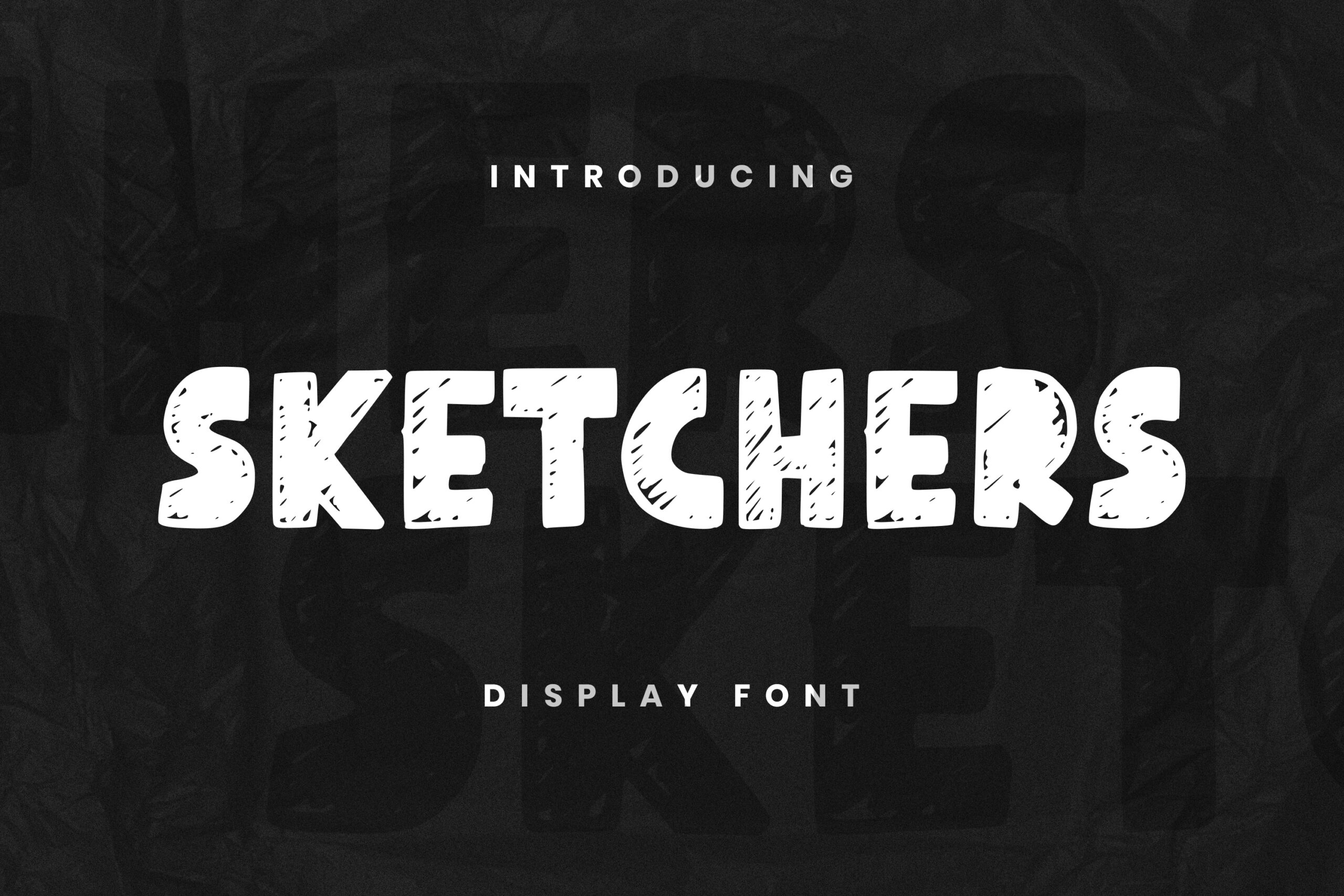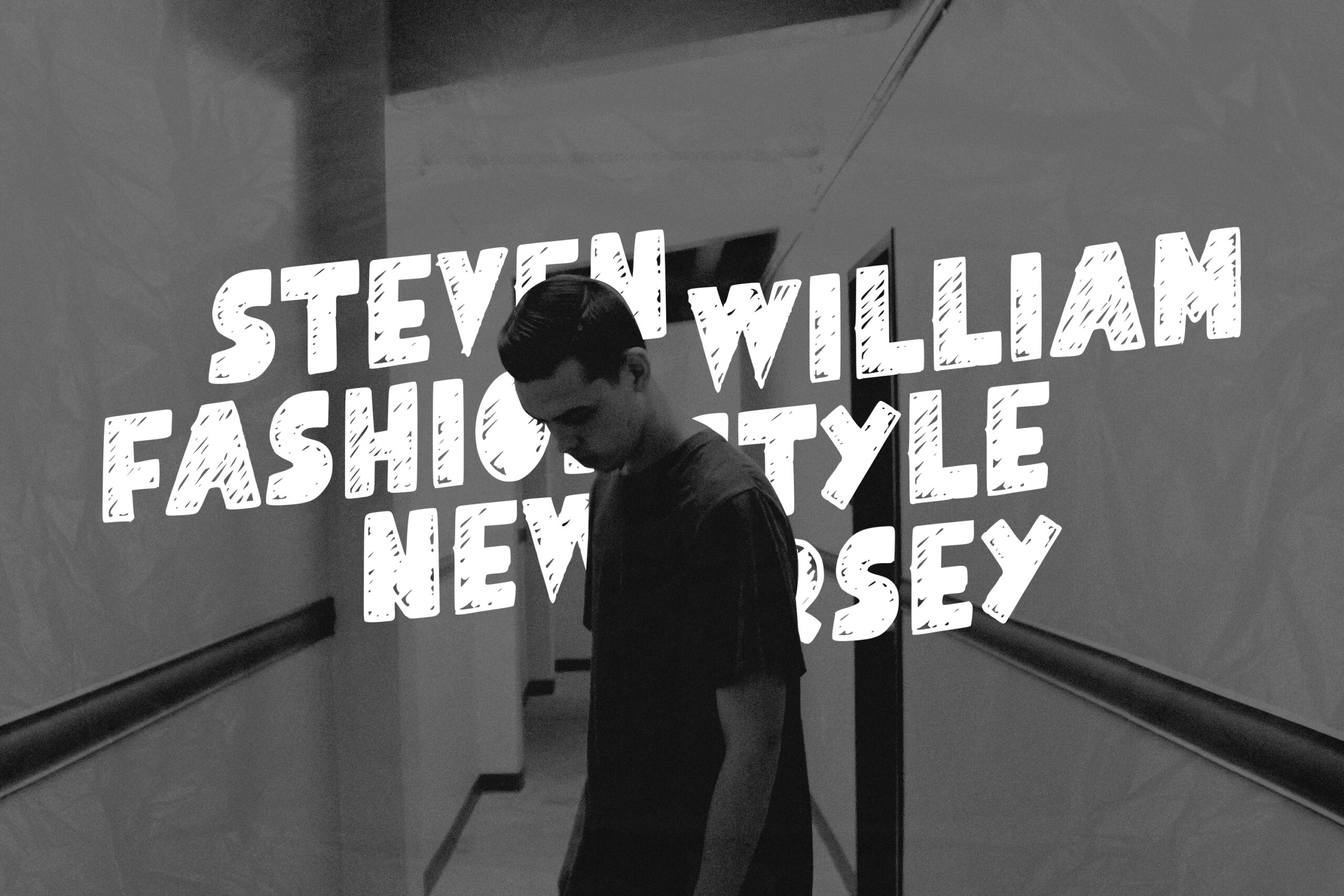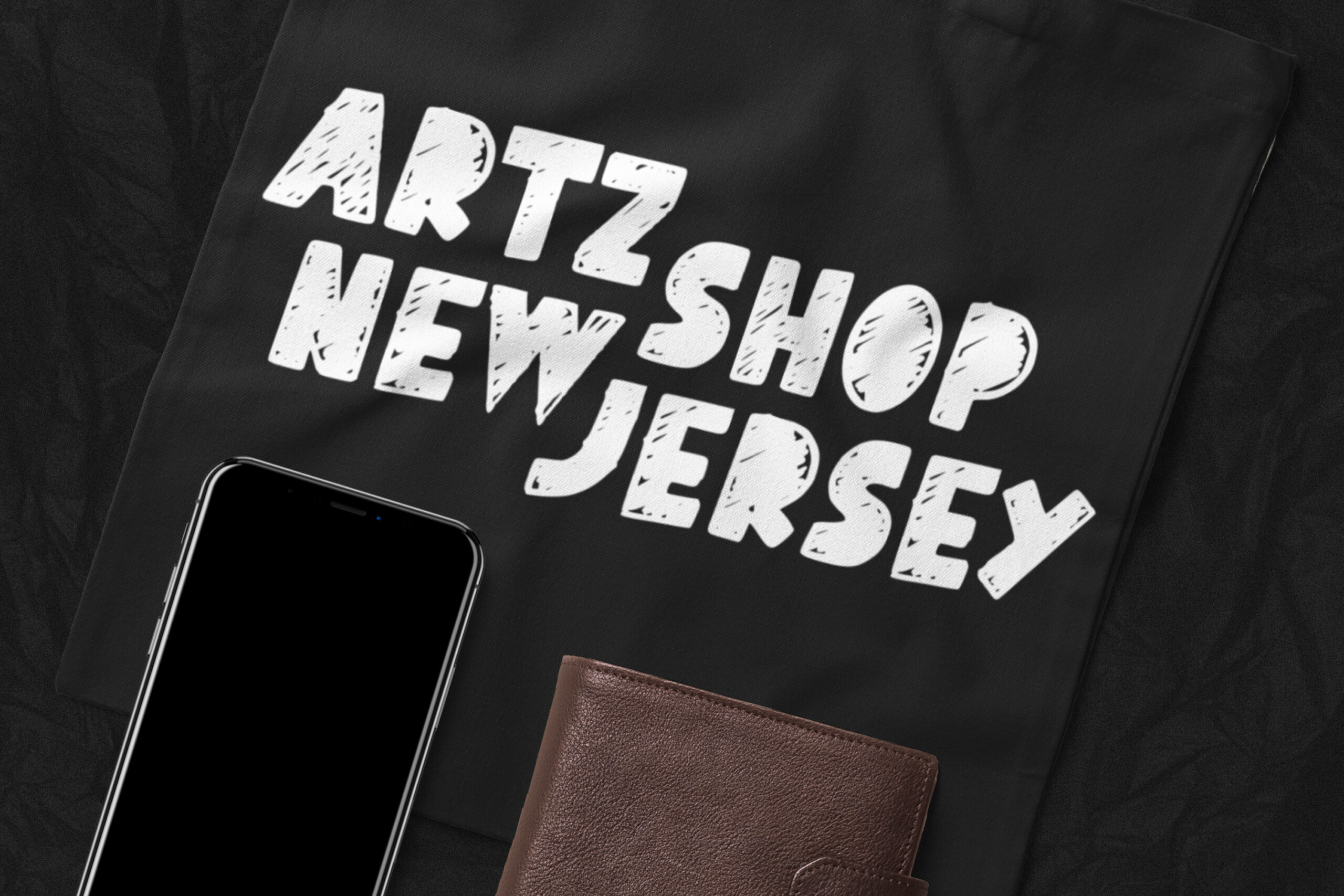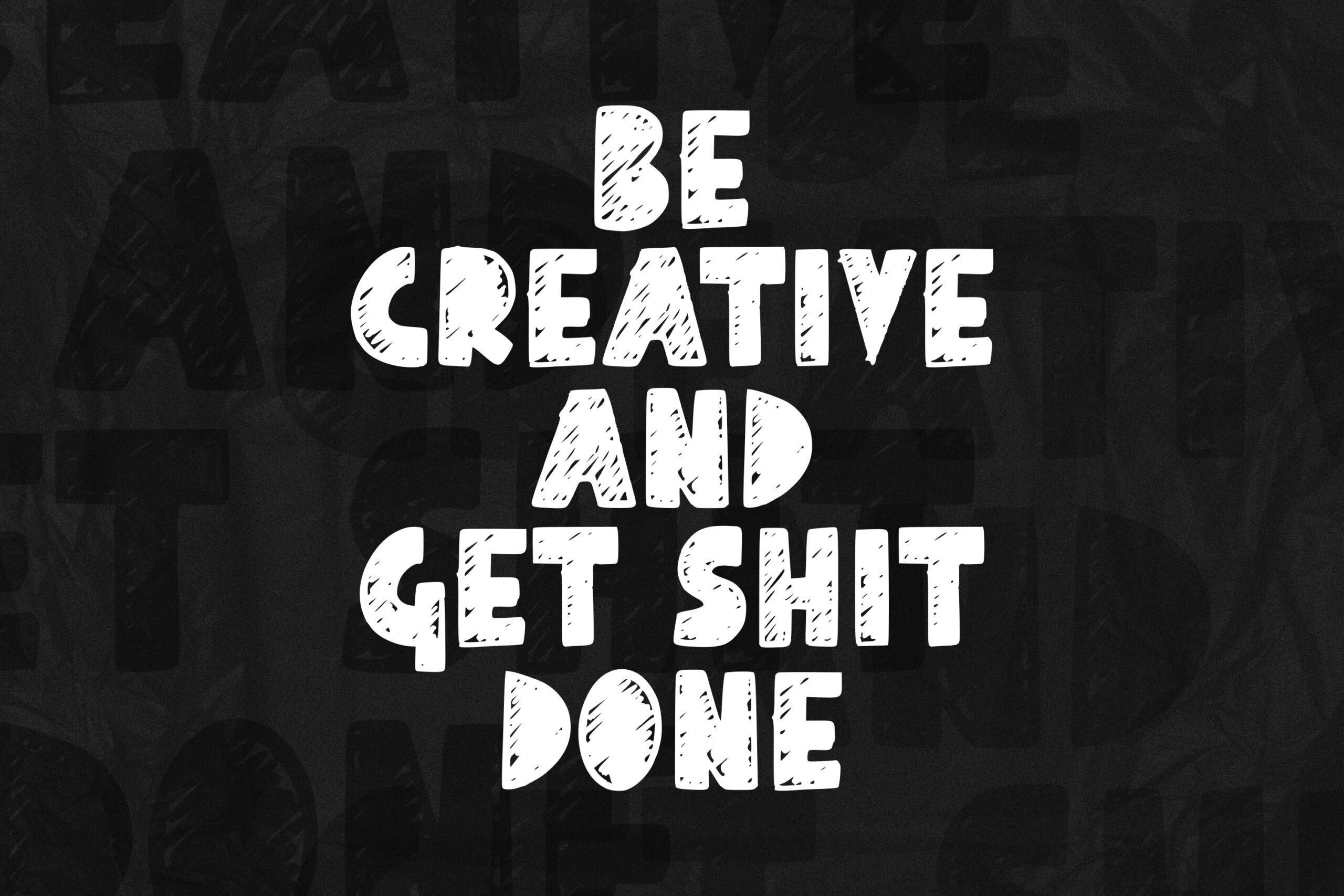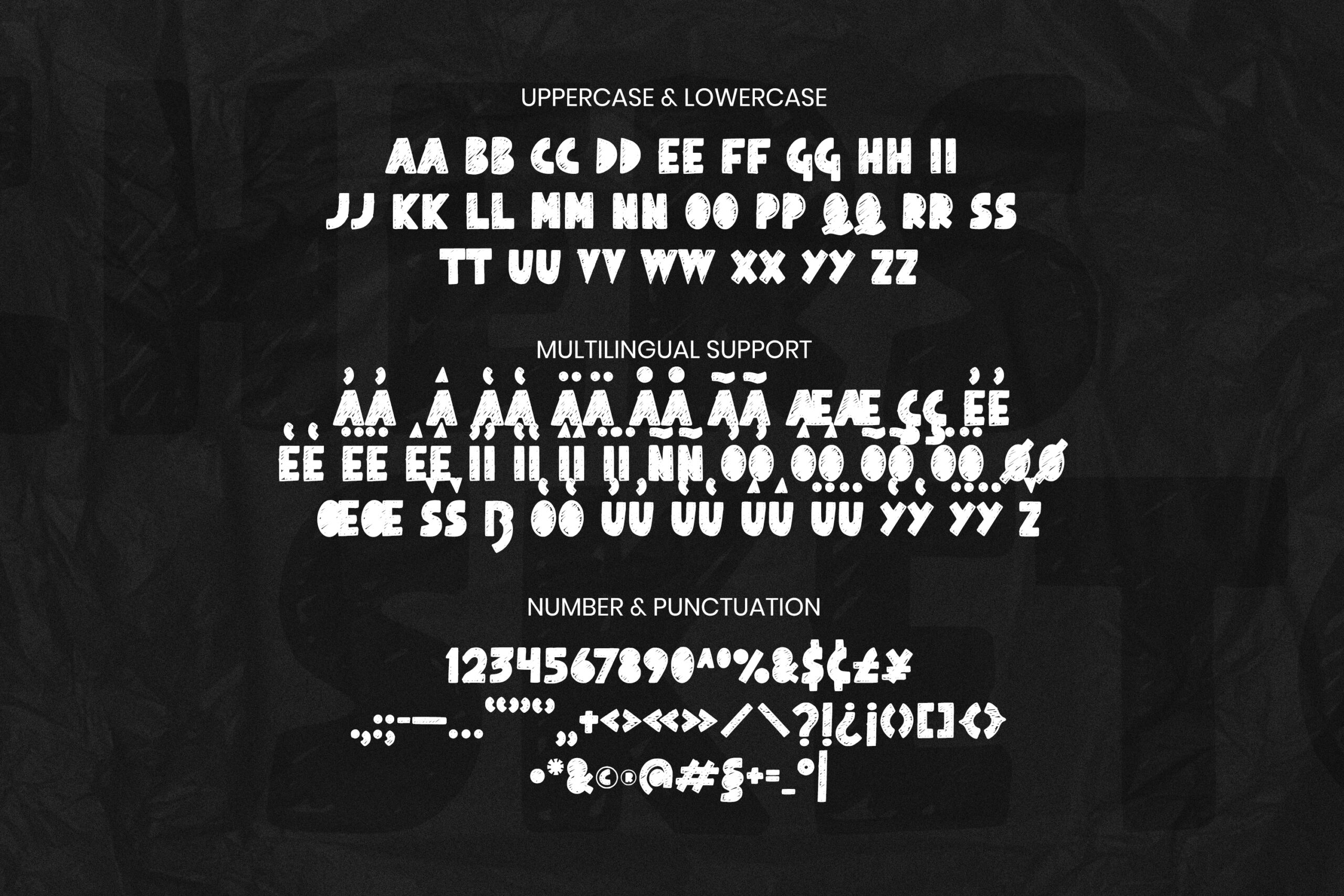
Sketchers is a bold, hand-sketched display font that brings energy and creativity to every project. With its thick strokes and playful sketch texture, this typeface adds a handmade and expressive vibe to headlines, poster designs, streetwear graphics, and youth branding. Whether you’re designing for a zine, an indie brand, or expressive campaign visuals, Sketchers delivers attitude and charm with its raw hand-drawn aesthetic.
Equipped with uppercase, lowercase, numerals, punctuation, and multilingual support, Sketchers provides full versatility while maintaining its casual, artistic appeal. Ideal for urban brands, merch graphics, DIY content, or creative posters, this font is your go-to for bold, expressive typographic statements.